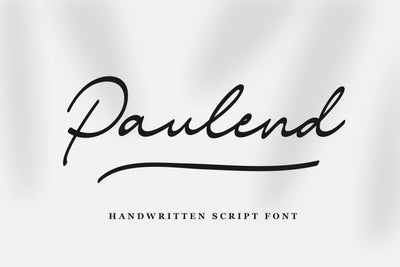
Paulend A Handwritten Script Font
Paulend is a unique and elegant handwritten font. It looks beautiful on various designs requiring a personalized style, such as wedding invitations, thank you cards, weddings, greeting cards, logos, and so on.